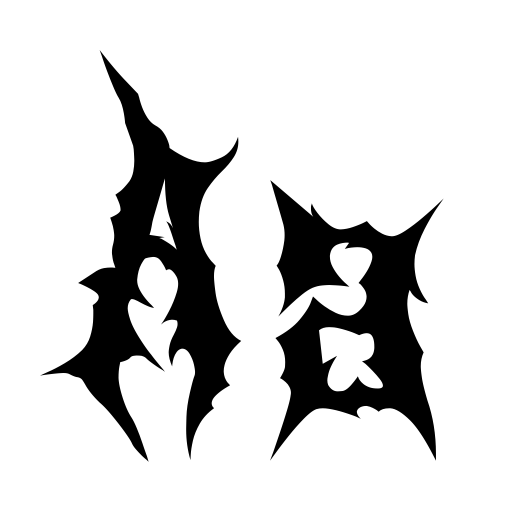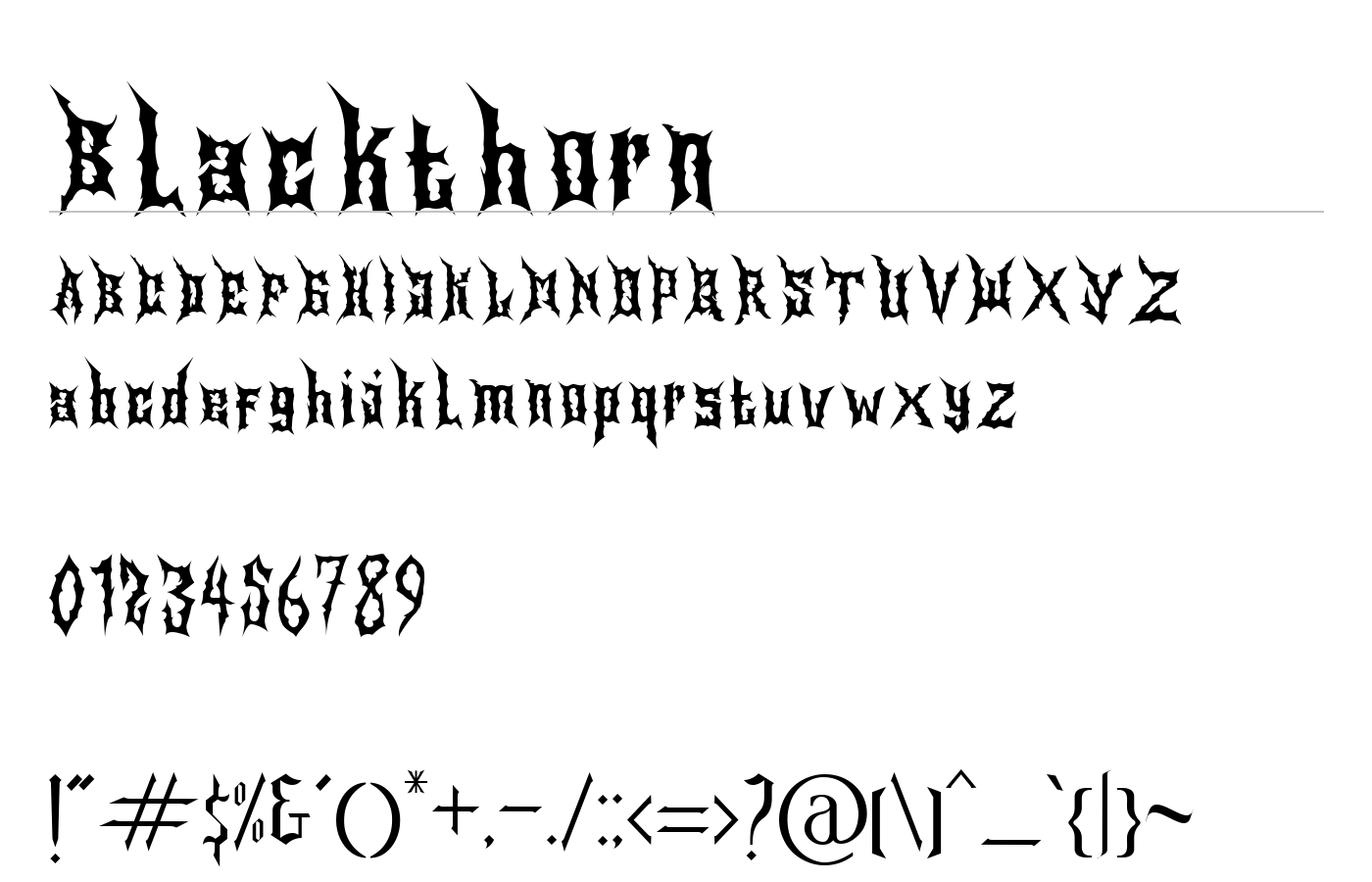
Blackthorn is a distinctive blackletter-inspired display font with sharp, thorn-like edges that give it a dramatic and gothic appearance. Its condensed letterforms and high contrast between thick and thin strokes create a bold, intense look, making it perfect for edgy branding, Halloween themes, or any design seeking a dark, medieval vibe. This font works best in headlines or logos where a strong, eye-catching impact is desired.
Blackthorn Font
About Blackthorn Font